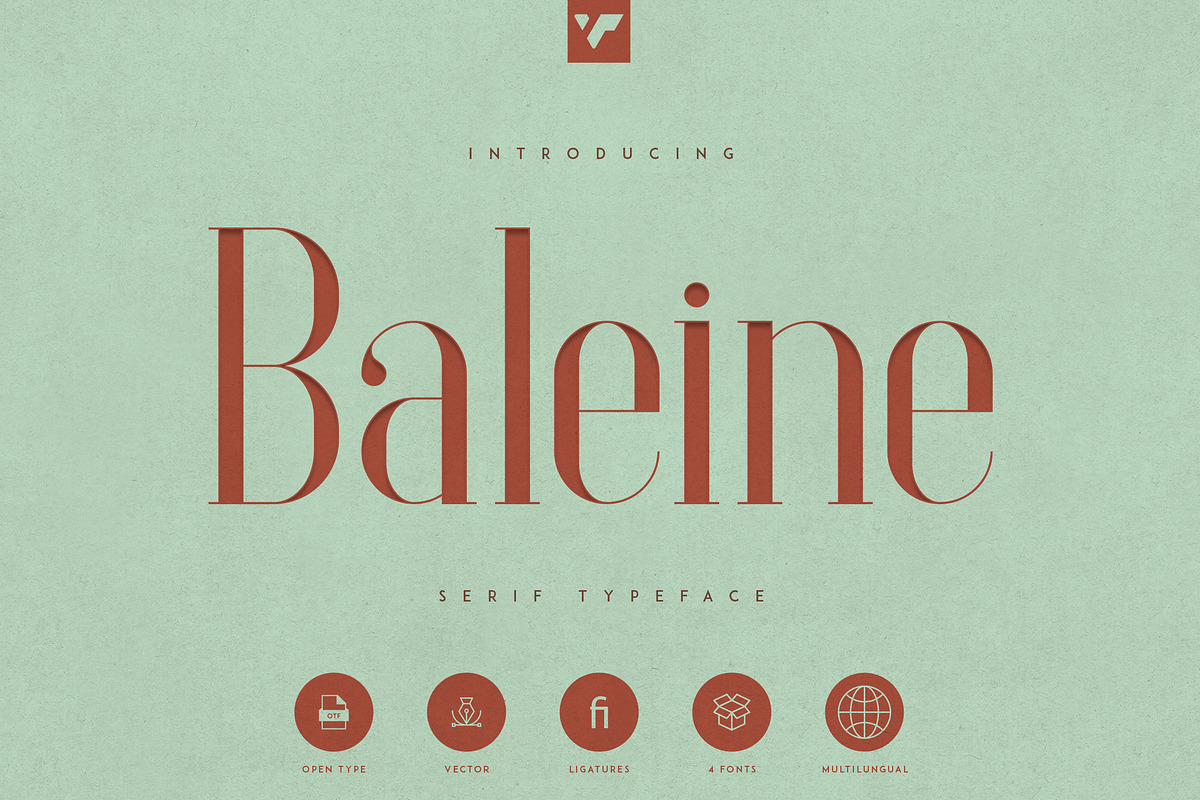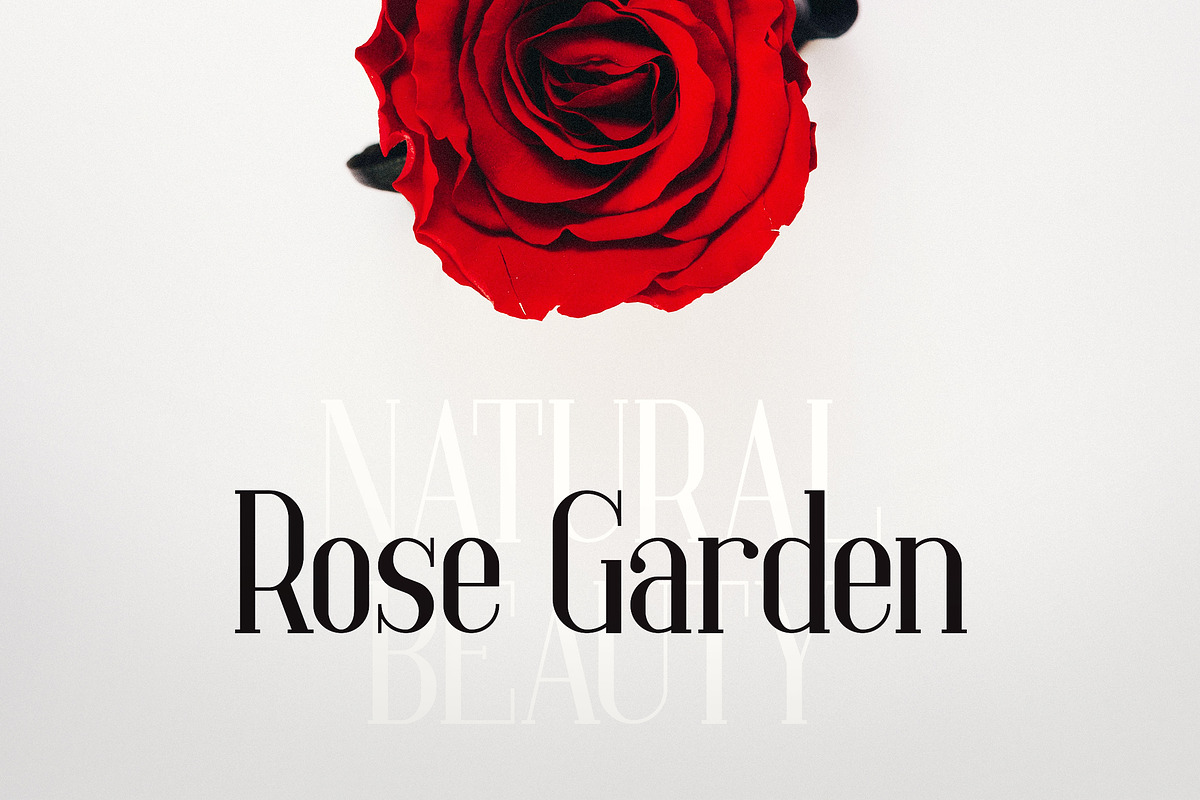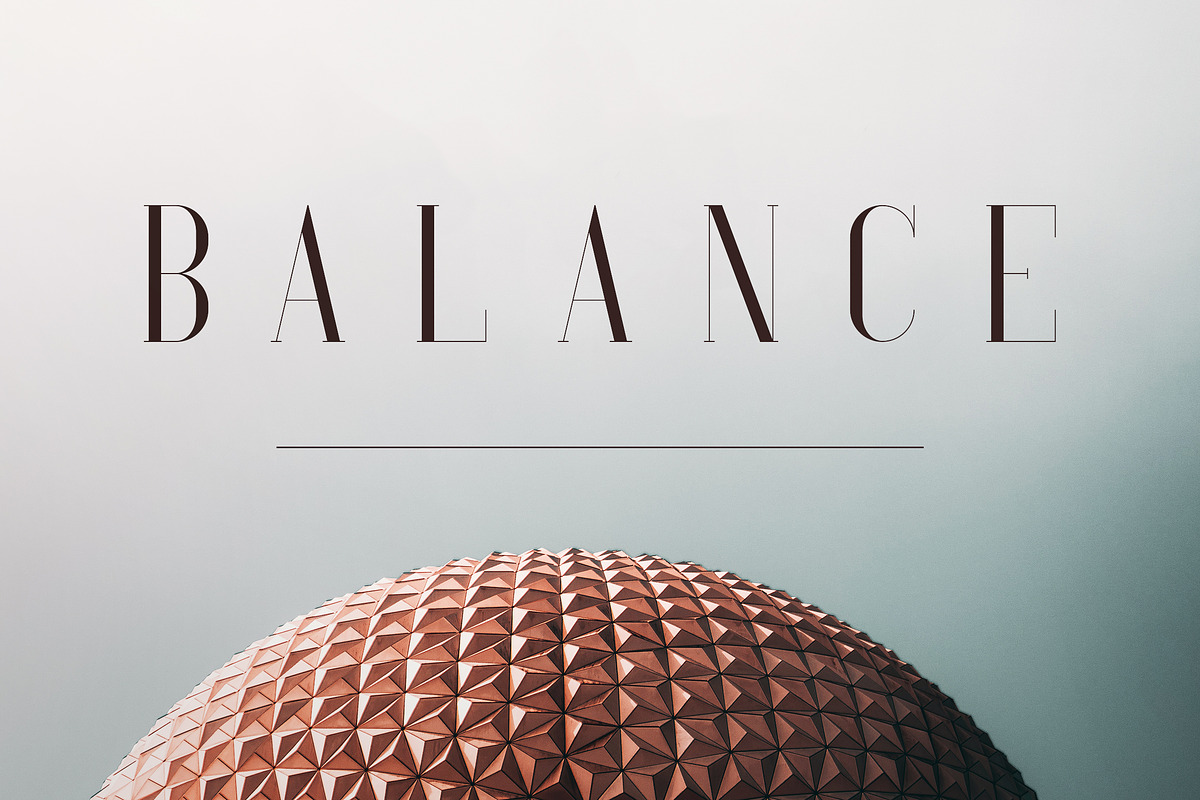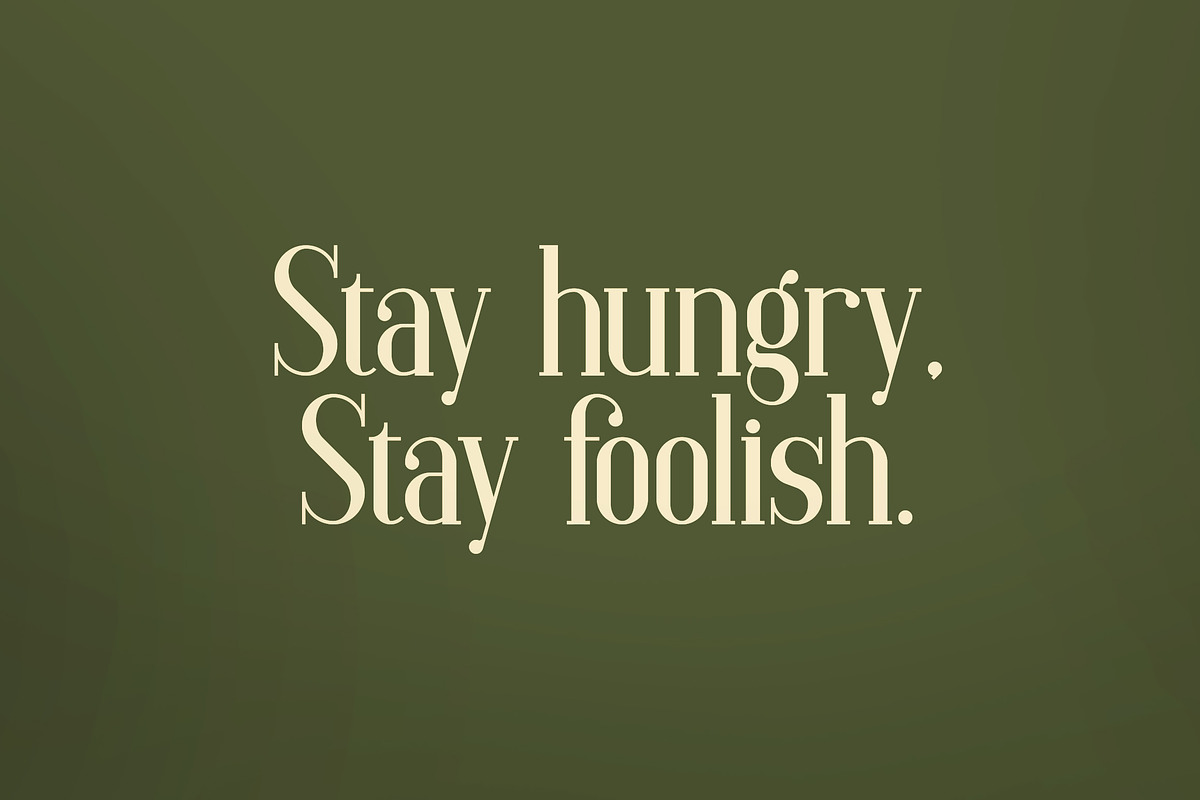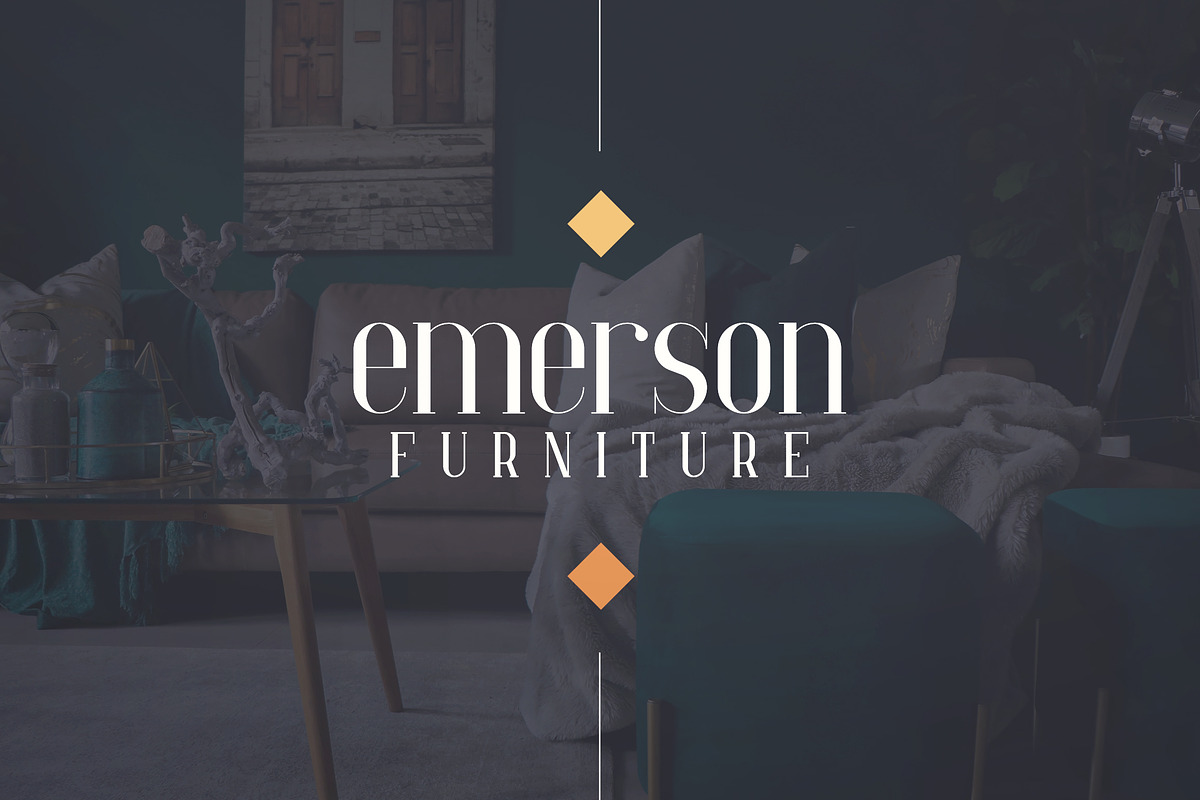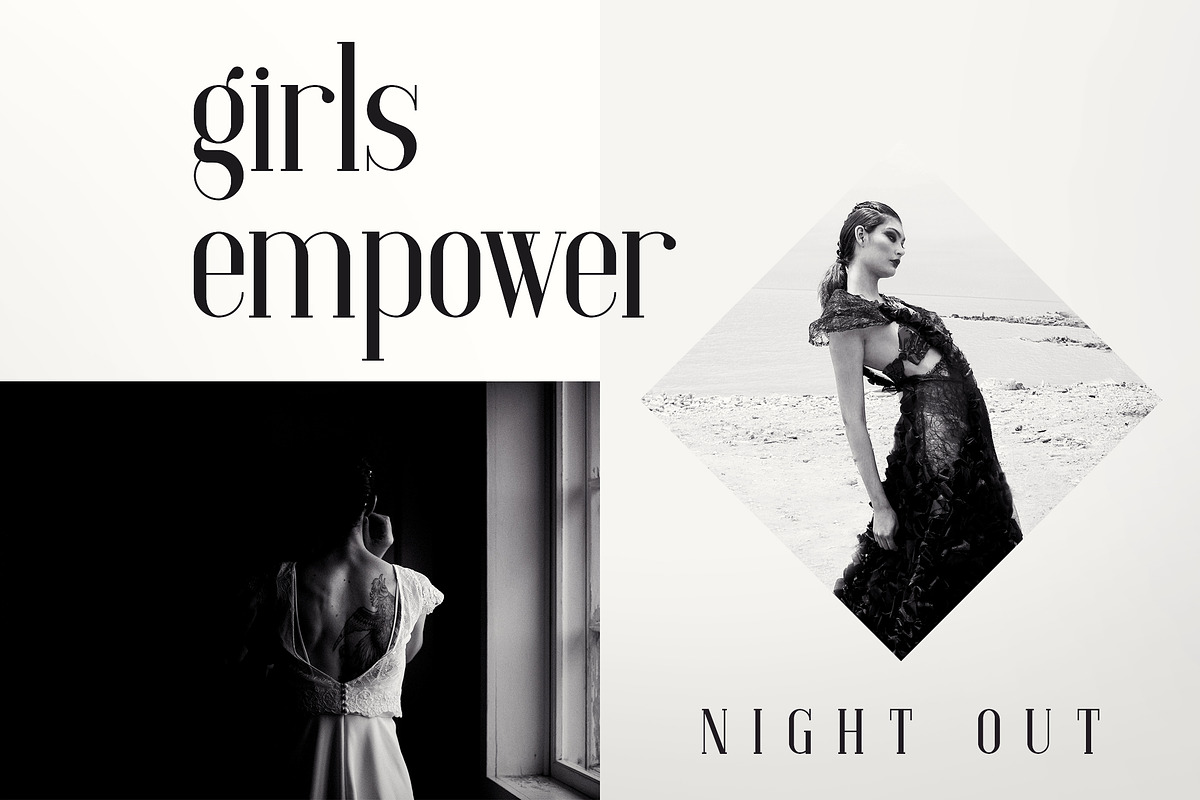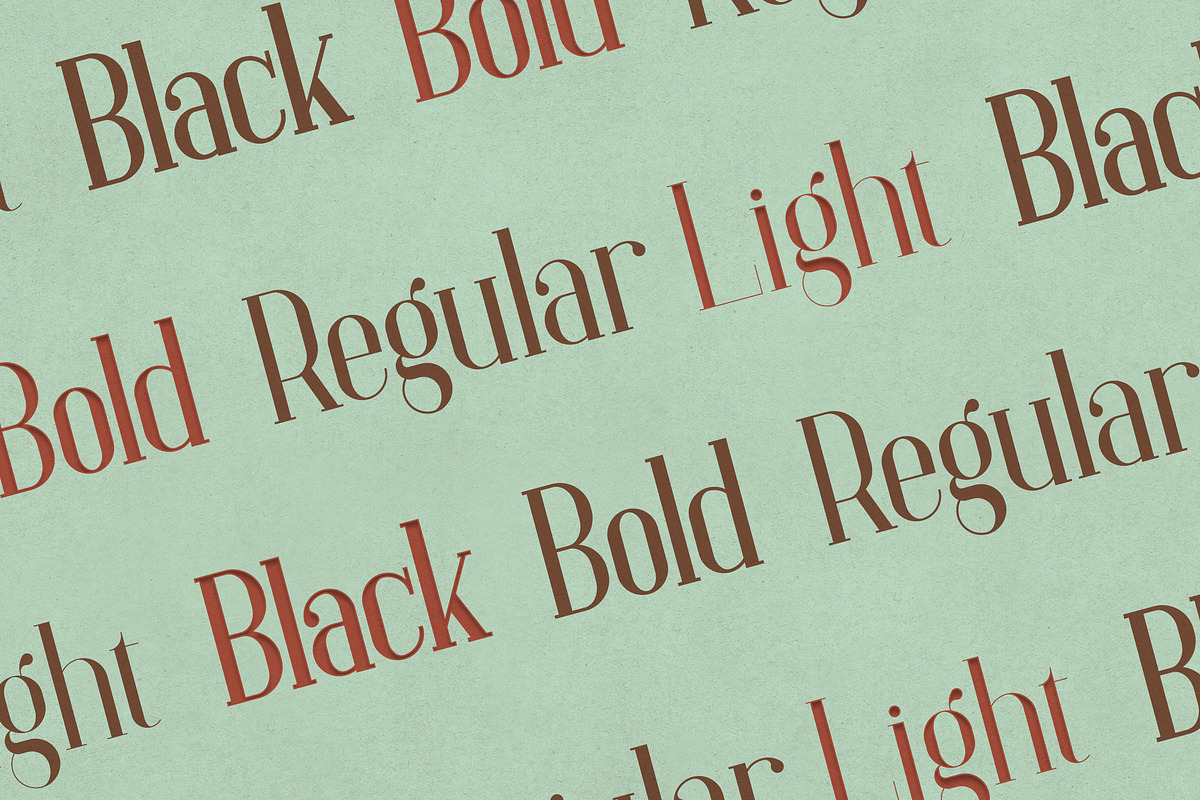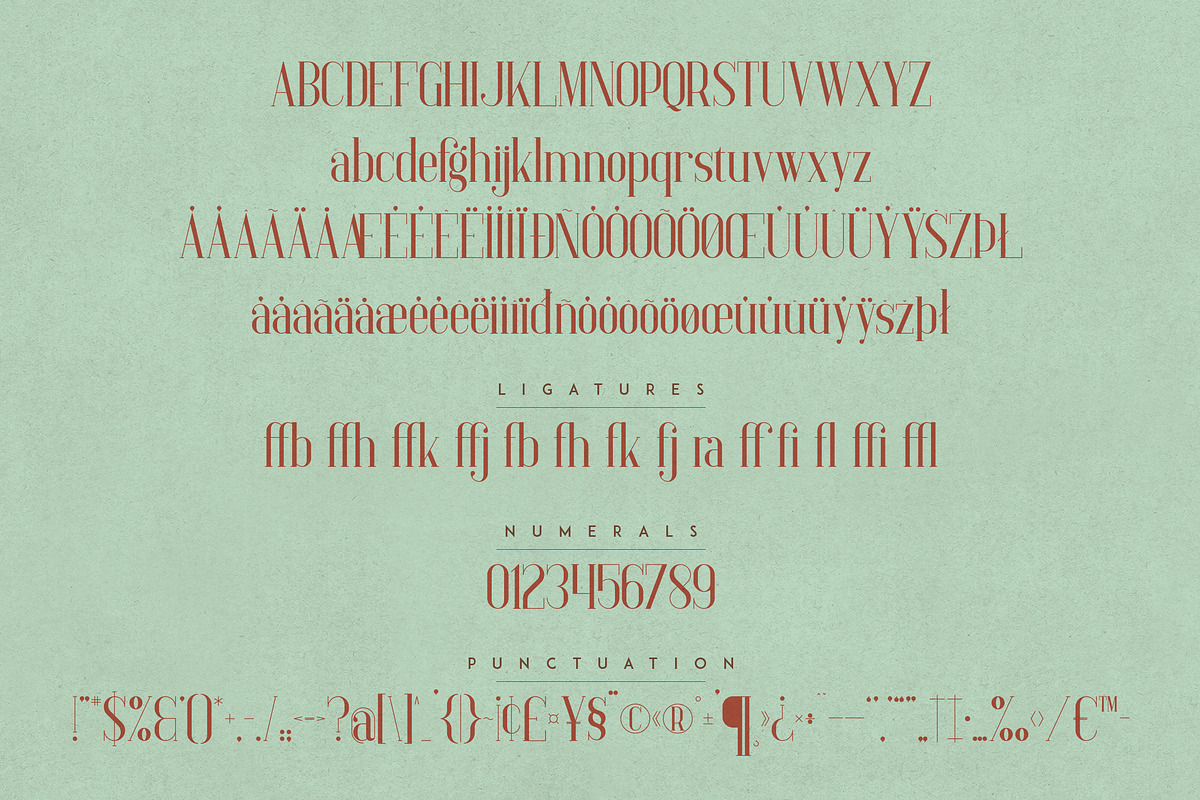
Baleine - Serif Typeface | 4 weights
Introducing Baleine - Serif Typeface
Baleine is vintage, elegant font with 4 weights, ligatures and multilingual support. It's a very versatile font that works great in large and small sizes.
Baleine is perfect for branding projects, home-ware designs, product packaging, magazine headers - or simply as a stylish text overlay to any background image.